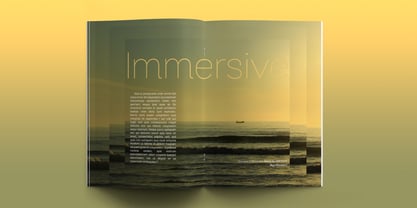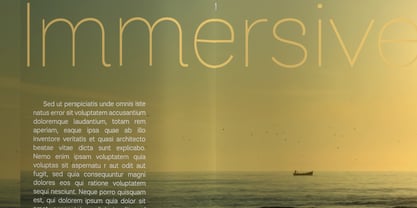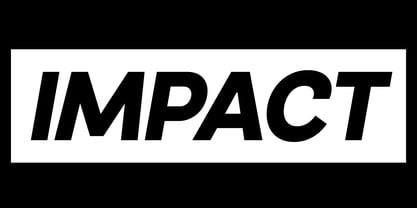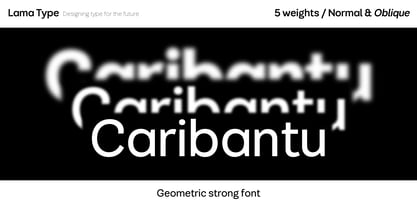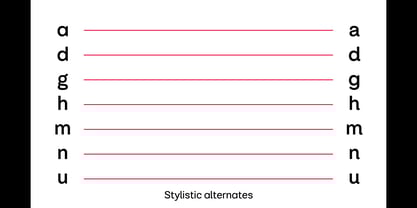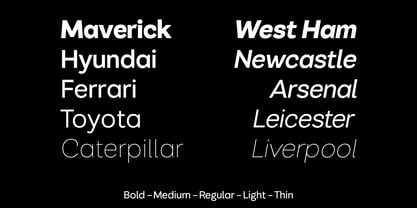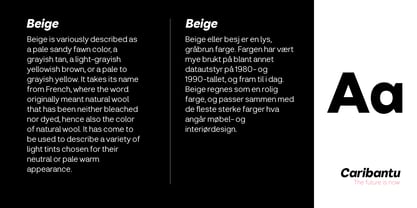
Caribantu Grotesque
by Lamatype
The Caribantu Grotesque Font Family was designed by Renan Bassan and published by Lamatype. Caribantu Grotesque contains 10 styles and family package options. More about this family
It's my first typographic family, made experimentally while learning more and more about typography every day. Its irregular shapes are evident, and in a way, they brought singular originality to its design. Is an ugly duckling that deserves to be shown to start a journey.
With closed curved glyphs like a, c, s, and proper width, this type can be used for text and display without the need to have another font. Uppercase and oblique letters can make an impact, and some alternate terminations from d, h, m, n, and u, can make an elegant appearance to your project.
Designers: Renan Bassan
Foundry: Lamatype
About Lamatype
Lamatype is an independent Brazilian foundry founded in 2020 by Graphic Designer Renan Bassan. Renan's initial interest was in grotesque typefaces, using this style to develop his understanding of typography and release his first font entitled "Caribantu Grotesque." Over time, with new acquired knowledge, Caribantu Grotesque evolved with touches of a new design and refinements, leading to the release of "Caribantu Agora" two years later. With a significant appreciation for typographic tradition, studies based on revivals will be part of the foundry's future.